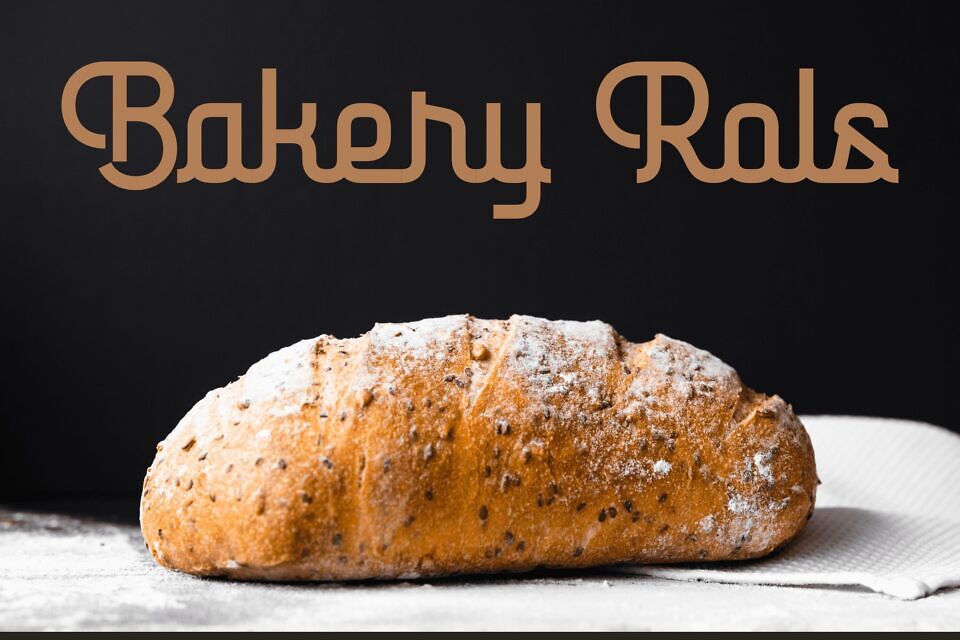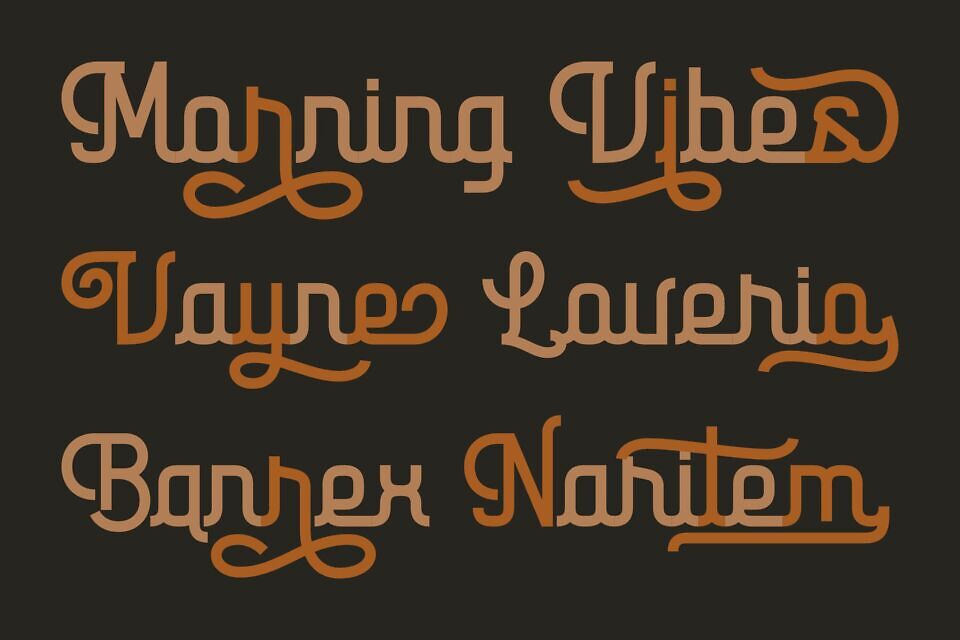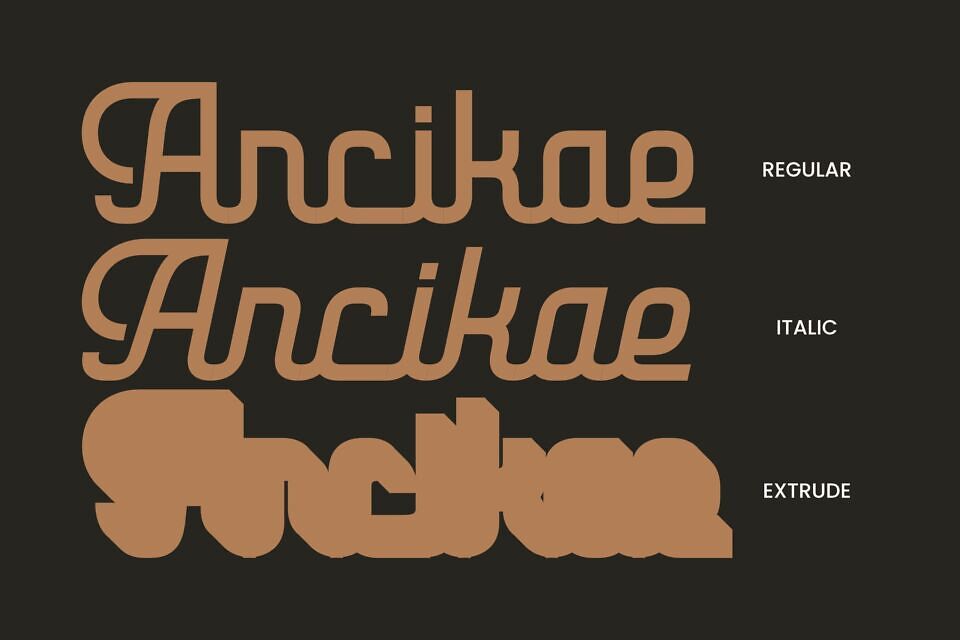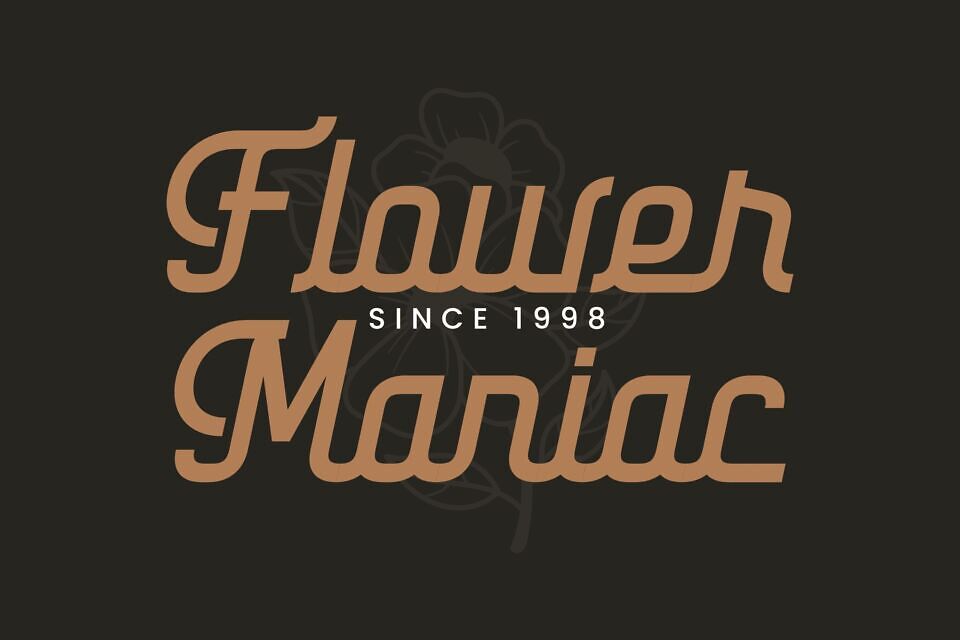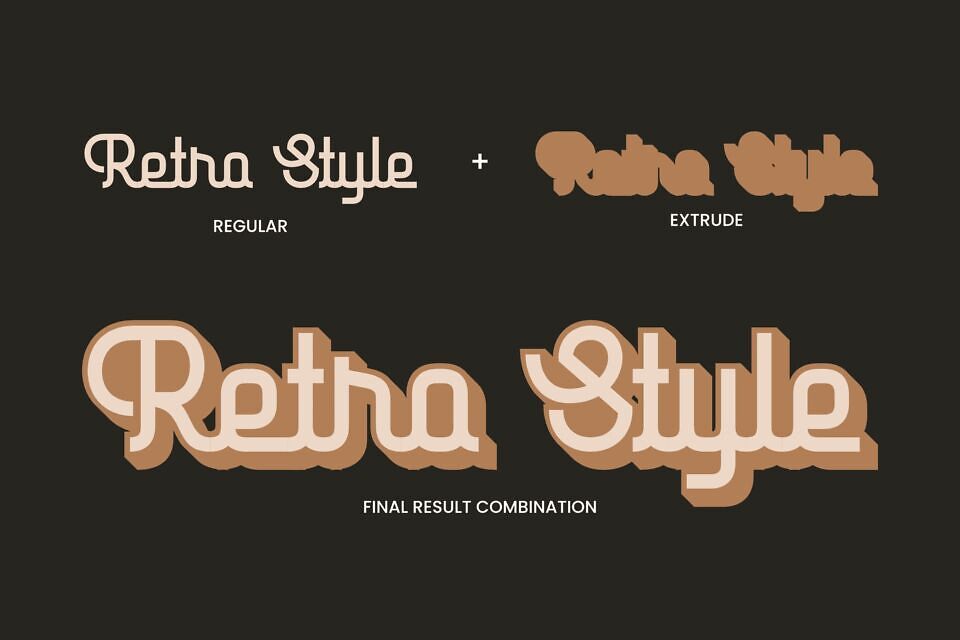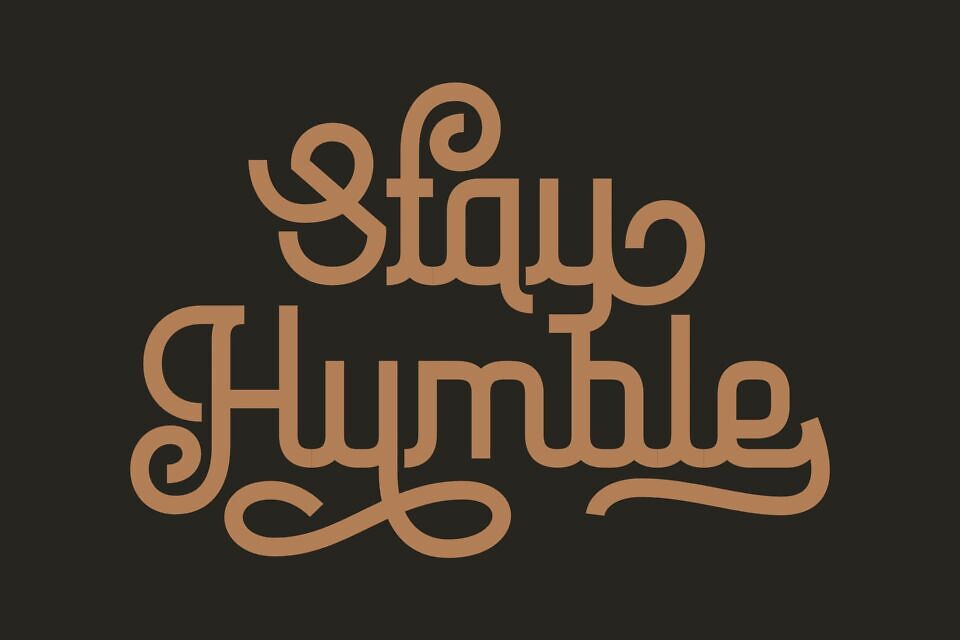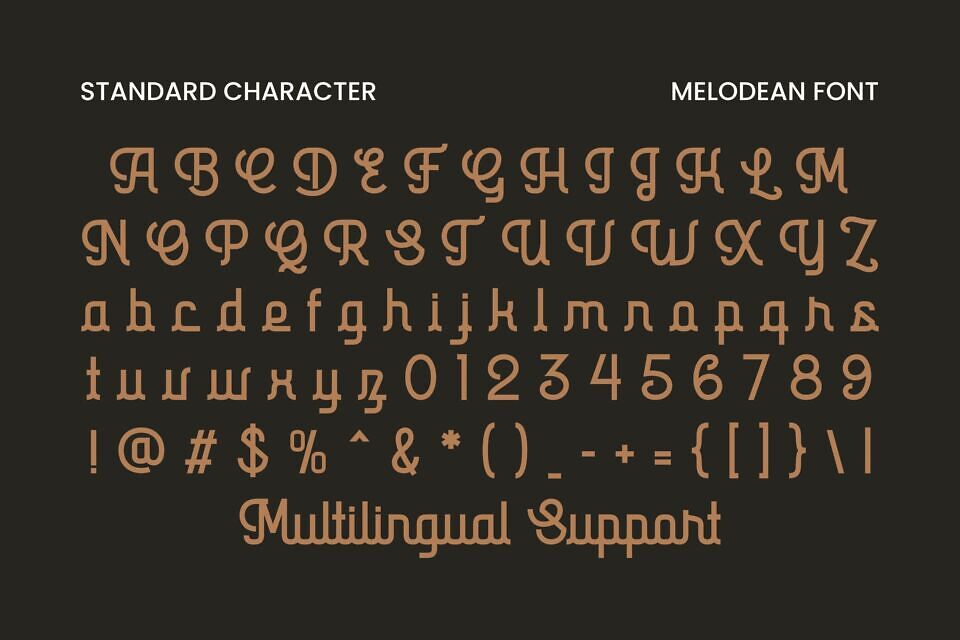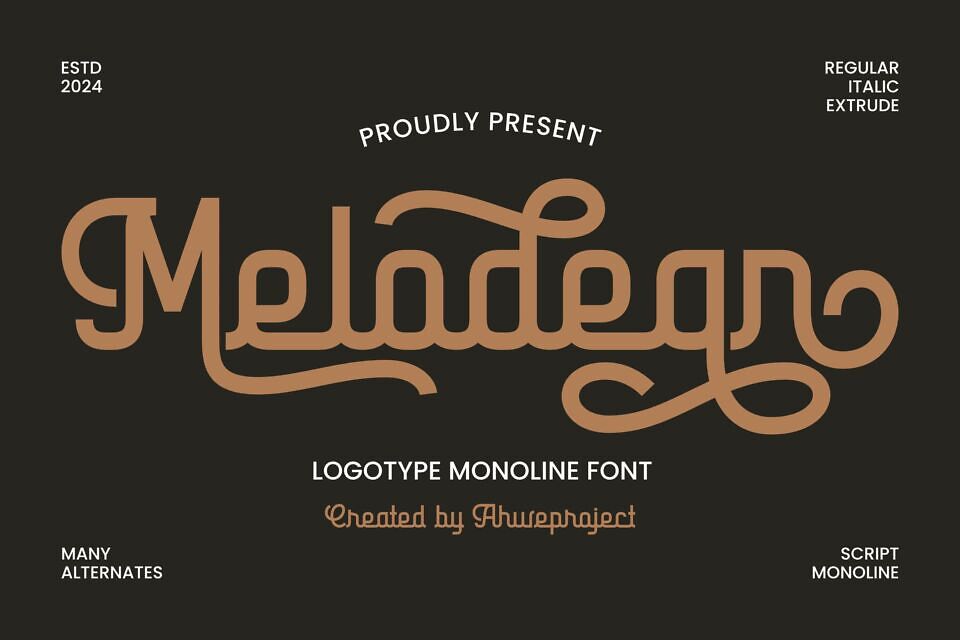
Melodean Font
Melodean captures the essence of tradition and the spirit of creativity. Rooted in the art of hand-lettering and an array of calligraphy styles, this single, monoline script connects each stroke, delivering a harmonious flow in every letter.
Its curves are smooth, and circle-shaped, emphasizing Melodean’s unique blend of form and structure. Ideal for crafting striking logotypes and impactful signboards.